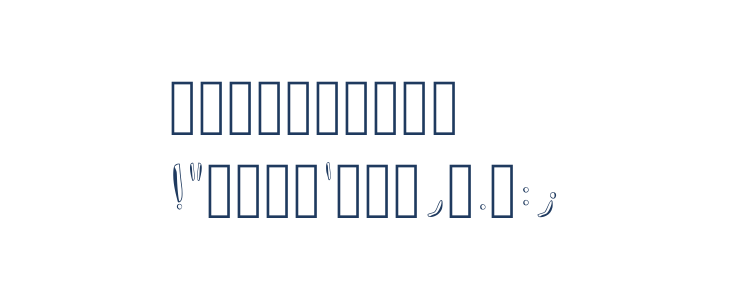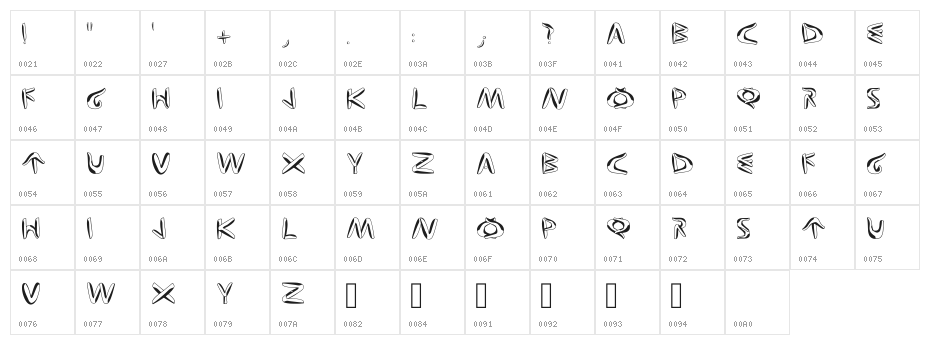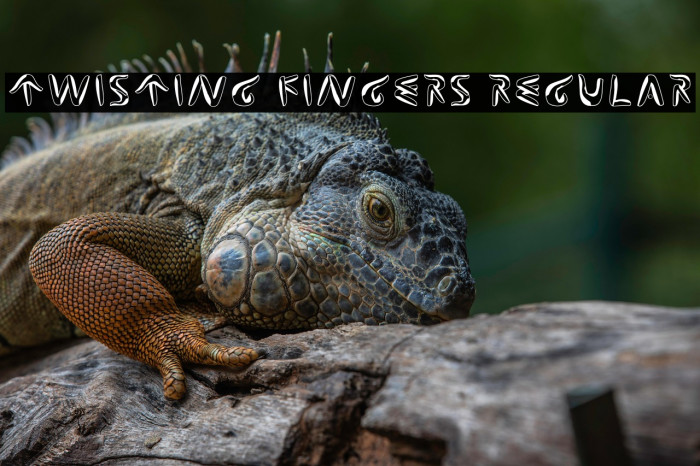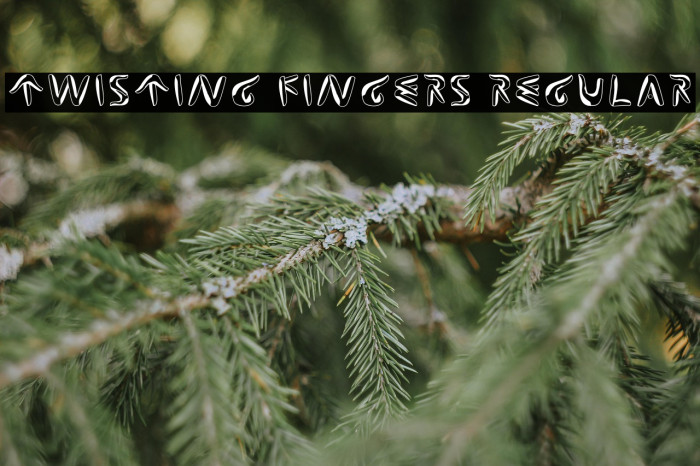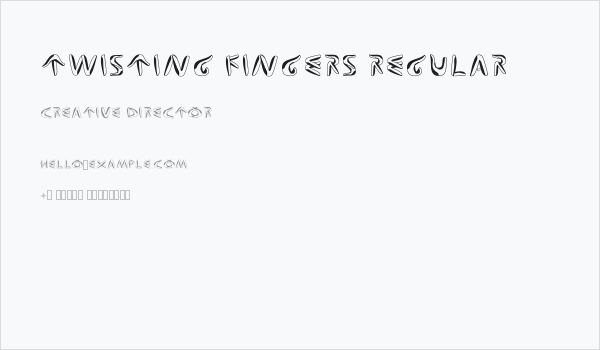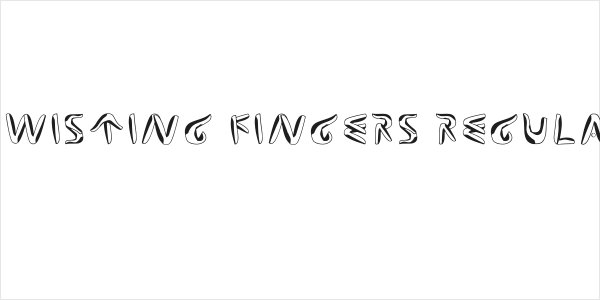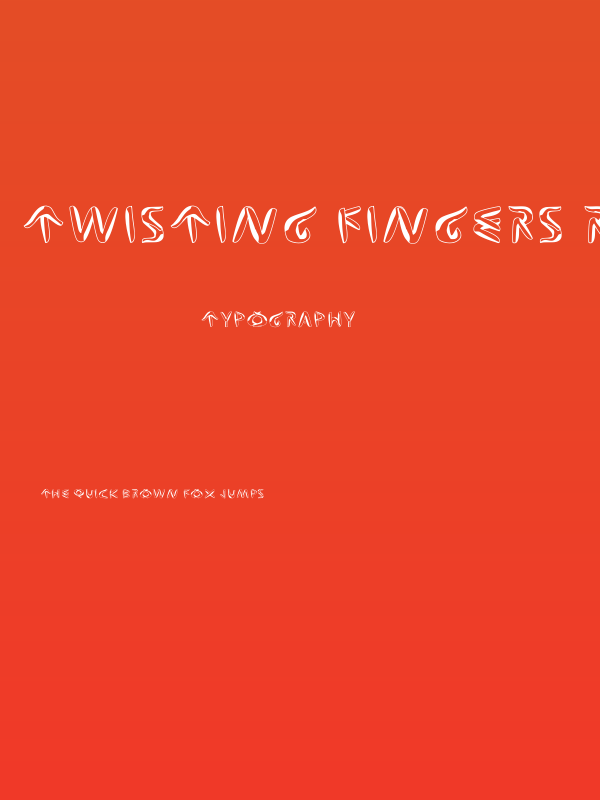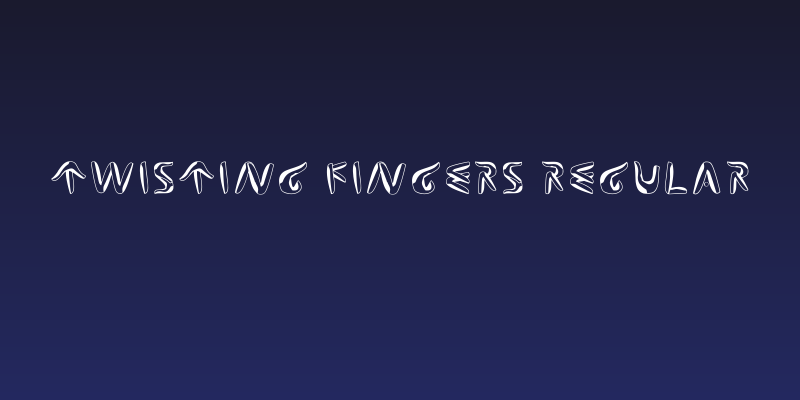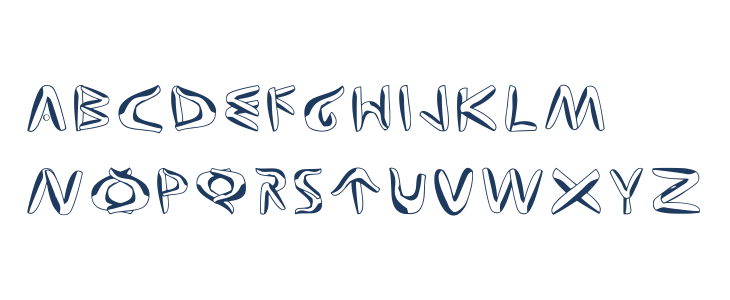
Twisting Fingers Regular Font
Twisting Fingers Regular Description
This font features a playful and dynamic design, with each character appearing as if it is twisting or bending. The strokes are bold and have a hand-drawn quality, giving it a unique and artistic flair. The letters are slightly irregular, adding to the whimsical and informal style. The font maintains legibility while offering a creative twist, making it suitable for eye-catching designs. The overall appearance is lively and energetic, perfect for projects that require a touch of creativity and fun.
| Proposed Projects | Ideal for children's book covers, playful branding, creative posters, and artistic invitations. |